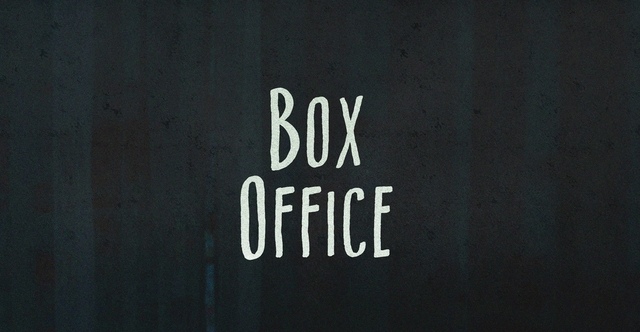
Box Office Font
Box Office Font dominates movie theater signage, film festival posters, cinema marketing campaigns, blockbuster movie titles, entertainment industry branding, ticket booth displays, Hollywood premiere graphics, streaming platform interfaces, movie trailer credits, entertainment awards ceremonies, film production company logos, and theatrical event promotions where cinematic grandeur and box office success create unforgettable entertainment experiences.
This spectacular typeface generates excitement through its masterful capture of Hollywood glamour and cinematic blockbuster energy that creates typography destined for box office success and entertainment industry recognition. Box Office Font embodies the essence of major motion picture excellence with its bold, commanding letterforms that demand attention like marquee lights and red carpet premieres. The font's sophisticated design approach incorporates elements that suggest theatrical drama, commercial success, and entertainment industry prestige, featuring proportions and styling that communicate blockbuster appeal and mainstream entertainment value. Its distinctive character reflects the excitement, star power, and mass appeal that define successful box office attractions.
The Box Office Font family includes comprehensive entertainment variations such as Regular, Bold, Light, Condensed, and Marquee versions, each maintaining the font's characteristic box office appeal while offering different levels of cinematic impact. The collection features theatrical styling, spotlight effects, and dramatic emphasis treatments that enhance its entertainment industry authenticity. Additional elements include film reel decorations, spotlight rays, star symbols, and red carpet-inspired ornaments that reinforce the font's connection to Hollywood success and entertainment excellence.
Entertainment industry professionals consistently select Box Office Font Free Download for projects requiring typography that communicates commercial success and mainstream entertainment appeal. This remarkable typeface excels in applications where capturing audience attention and conveying blockbuster quality are essential for marketing success. The font's cinematic qualities make it particularly effective for movie studios, entertainment venues, and media companies targeting audiences who appreciate Hollywood glamour and box office entertainment.
Whether you're designing movie marketing campaigns, creating entertainment venue branding, developing streaming platform interfaces, or building blockbuster promotional materials, Box Office Font delivers unmatched cinematic authority. Its ability to convey entertainment value, commercial success, and Hollywood prestige makes it invaluable for entertainment industry professionals seeking typography that guarantees box office appeal. The font's theatrical presence ensures your designs will command audience attention and communicate the star quality essential for successful entertainment industry communications and blockbuster marketing campaigns.